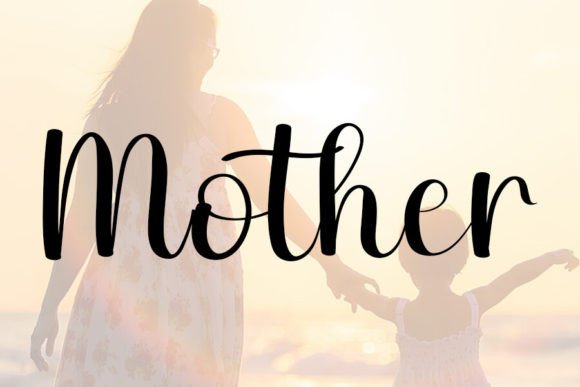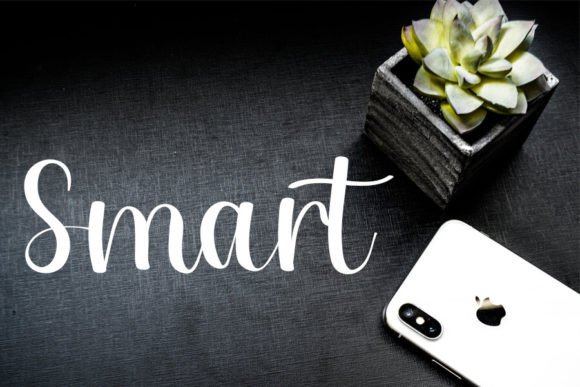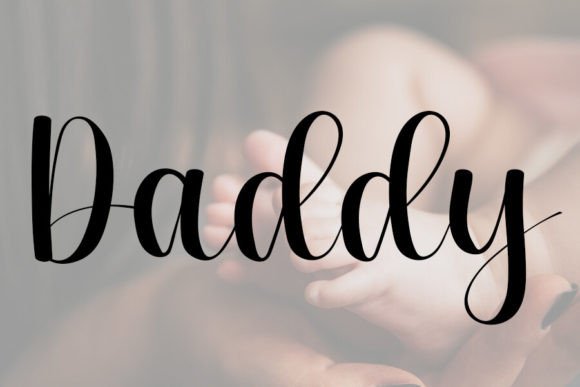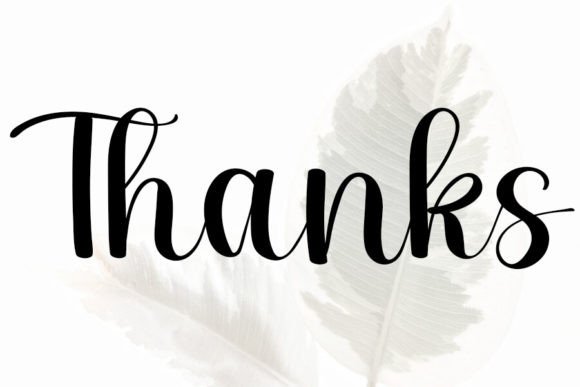
Balking Font: Elevate Your Creativity with Elegance
In the realm of typography, a font can make or break the visual appeal of a project. For those seeking a touch of elegance and sophistication, the Balking Font is a game-changer. This magical script font is carefully crafted to transform any creative idea into a true piece of art. Whether you’re a designer, crafter, or DIY enthusiast, Balking Font is the perfect companion for your next project.
The Story Behind Balking Font
Balking Font is more than just a collection of letters; it’s an experience. With its unique blend of classic calligraphy and modern flair, this font is designed to evoke emotions and add a personal touch to your work. The creators of Balking Font have poured their hearts into crafting a font that is not only beautiful but also versatile, making it suitable for a wide range of applications.
Features of Balking Font
- Elegant and Sophisticated: Balking Font boasts a refined and luxurious feel, perfect for projects that demand a high level of sophistication.
- Magical Script: The font’s script style is reminiscent of magical and whimsical tales, adding a touch of fantasy to your work.
- Versatile: From Instagram posts to DIY projects, Balking Font adapts seamlessly to various mediums and formats.
- User-Friendly: Designed with ease of use in mind, Balking Font is accessible to both beginners and seasoned designers.
Uses of Balking Font
The possibilities with Balking Font are endless. Here are a few ideas to get you started:
- Instagram and Social Media: Elevate your feed with stylish and eye-catching text that stands out from the crowd.
- DIY Projects: Add a personal touch to your handmade crafts, such as journals, cards, and decorations.
- Graphic Design: Use Balking Font in your professional projects, including brochures, posters, and branding materials.
- Crafting and Scrapbooking: Create beautiful and unique scrapbook pages, cards, and other paper crafts.
Tips for Using Balking Font
To get the most out of Balking Font, consider the following tips:
- Experiment with Colors: Play with different colors and textures to add depth and interest to your work.
- Mix and Match: Combine Balking Font with other fonts and styles to create unique and visually appealing designs.
- Pay Attention to Spacing: Adjust the spacing between letters and words to achieve the desired effect and flow.
- Add Decorative Elements: Incorporate illustrations, icons, or other design elements to enhance your work and make it more engaging.
Balking Font is a treasure trove of creativity, waiting to be explored and utilized. With its elegant and sophisticated design, this magical script font is poised to become a favorite among designers, crafters, and DIY enthusiasts. Whether you’re looking to elevate your social media presence, create stunning DIY projects, or add a touch of luxury to your professional designs, Balking Font is the perfect choice. So why wait? Dive into the world of Balking Font and unlock the full potential of your creativity.
Embark on a creative journey with Balking Font and discover a world of possibilities. Whether you’re a seasoned professional or just starting out, this magical script font is sure to inspire and delight. So go ahead, let your imagination run wild, and see where Balking Font takes you.